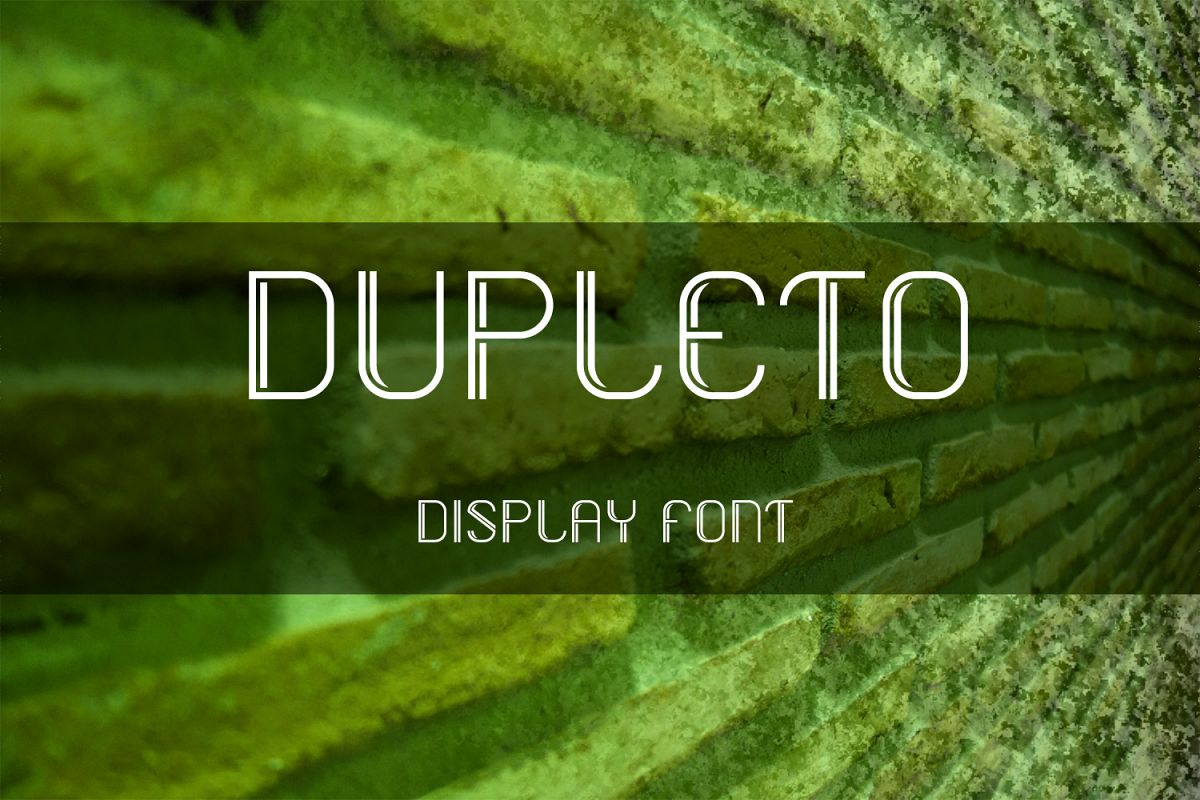
DUPLETO name is derived from word "double" regards it's double line accent.
It is based on rounded corner square, very geometric and clean.
Contain capital letters, numbers and general punctuations.